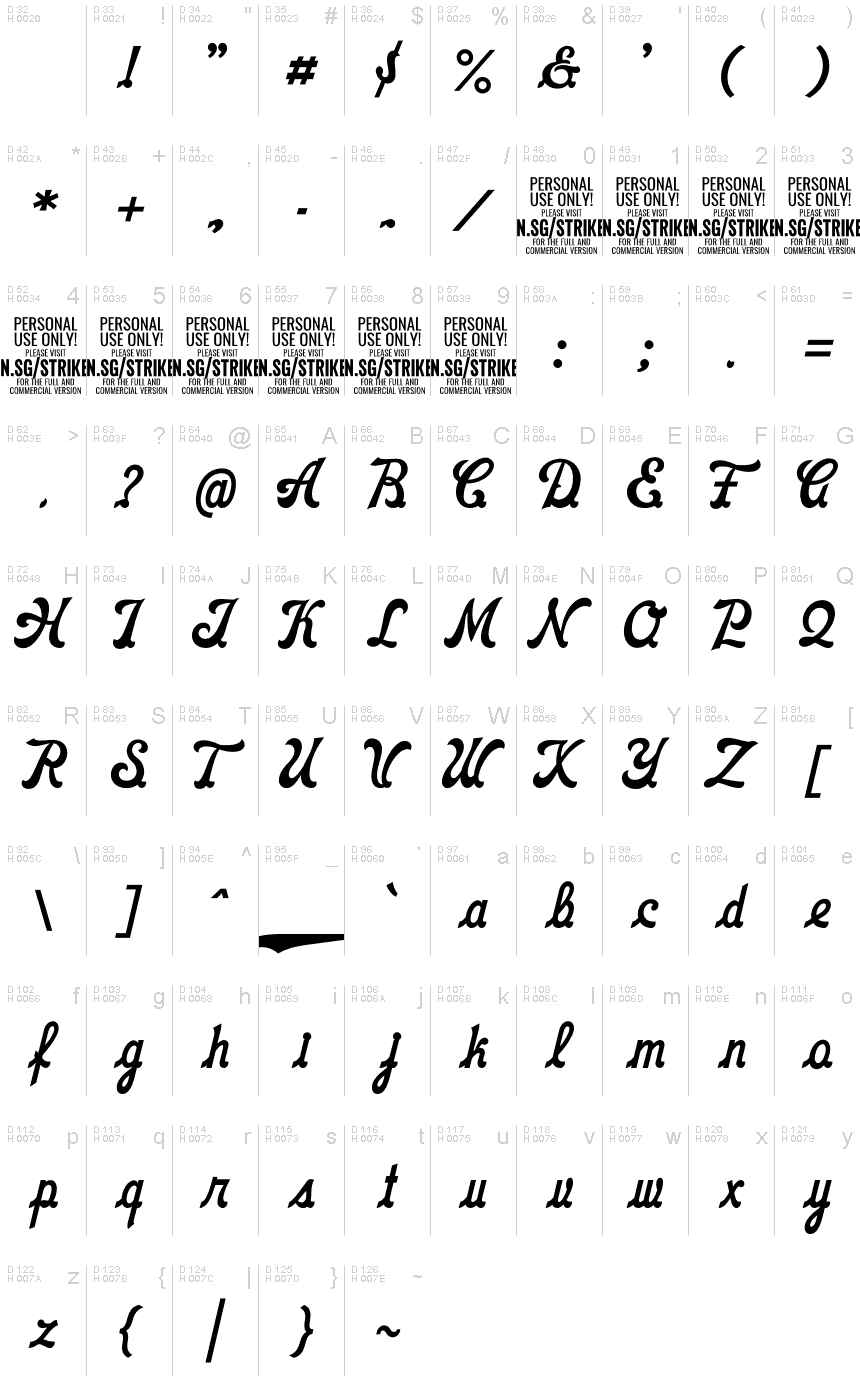
Strikers Connect PERSONAL Regular
Strikers Connect, designed by Mans Greback, is a captivating and versatile semi-bold font that effortlessly combines smooth brush strokes with modern aesthetics. With its unique style, this font is perfect for a wide range of projects that demand a touch of elegance and creativity. From eye-catching logos and branding materials to stylish posters and social media graphics, Strikers Connect adds a bold yet refined flair. Whether you're designing for fashion, beauty, or even tech industries, this font will captivate your audience and elevate your visual content to new heights.
Use symbols < > around the word to make beginning and end.
Example:
Use underscore _ to make a swash.
Example: Letter_
Use multiple underscores to make longer swashes.
Example: Baltimore____